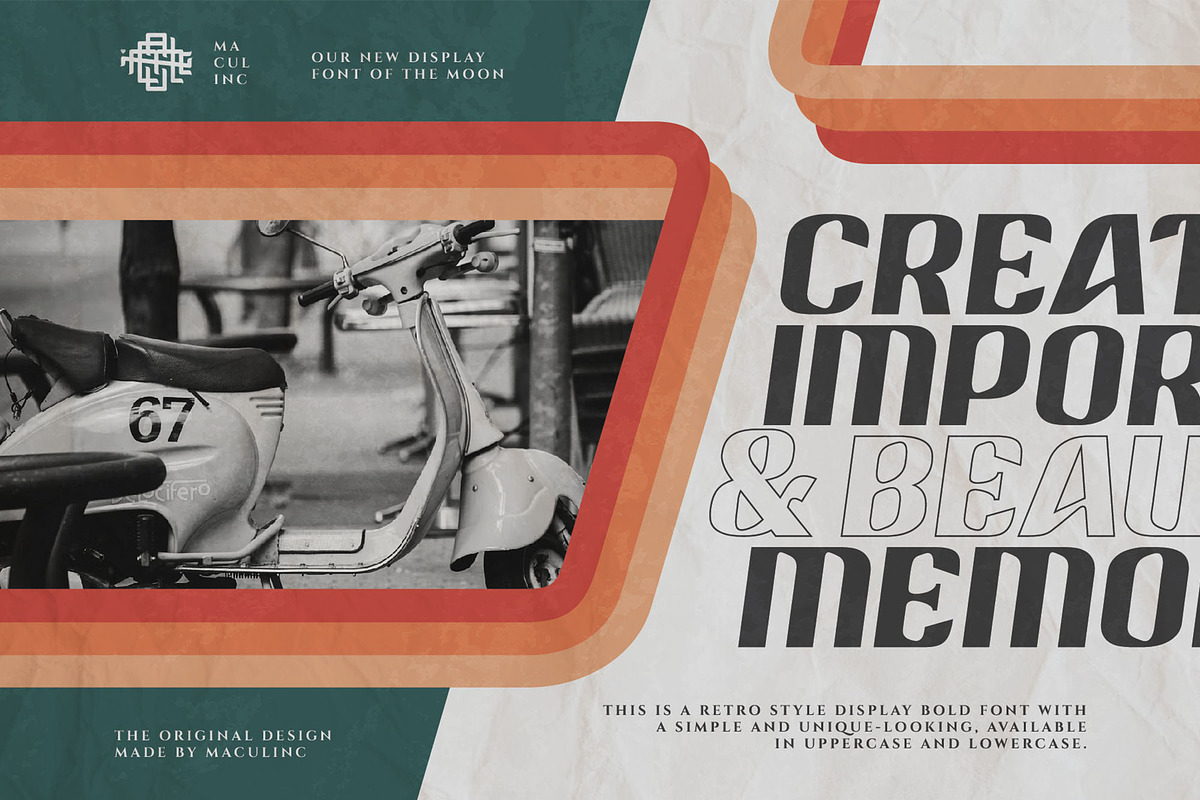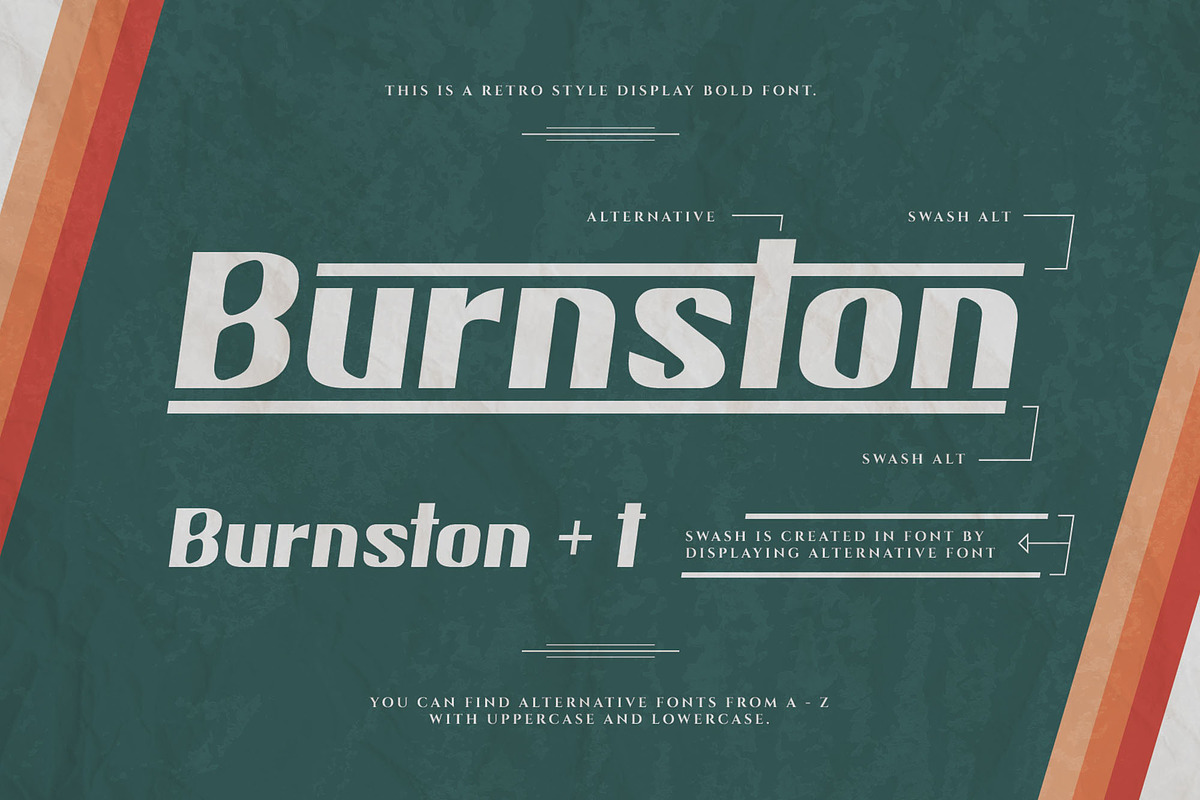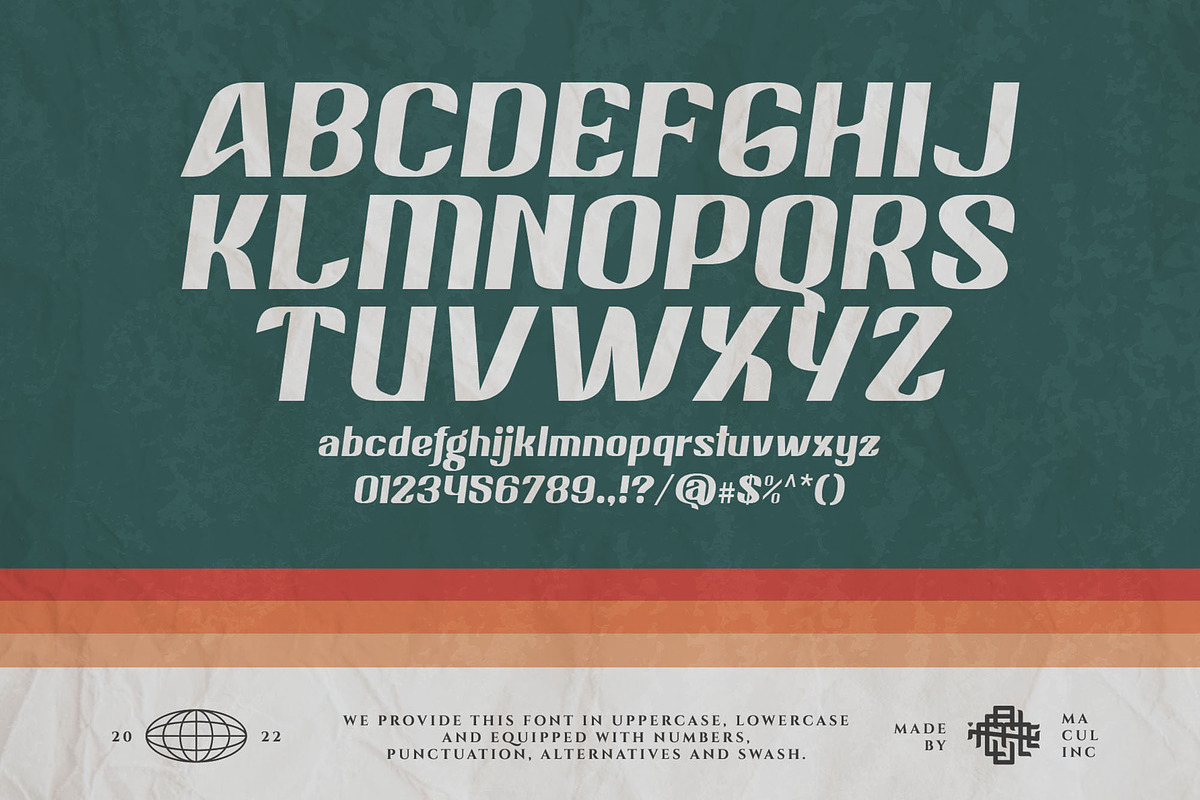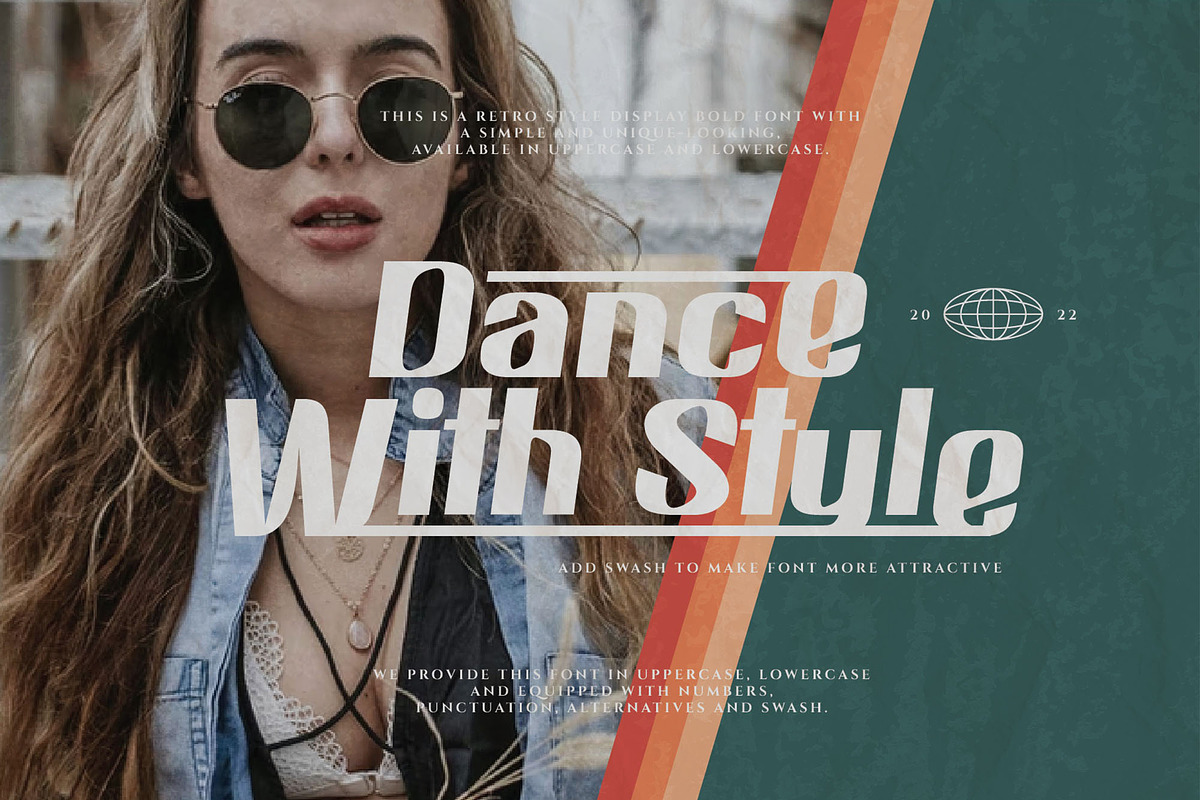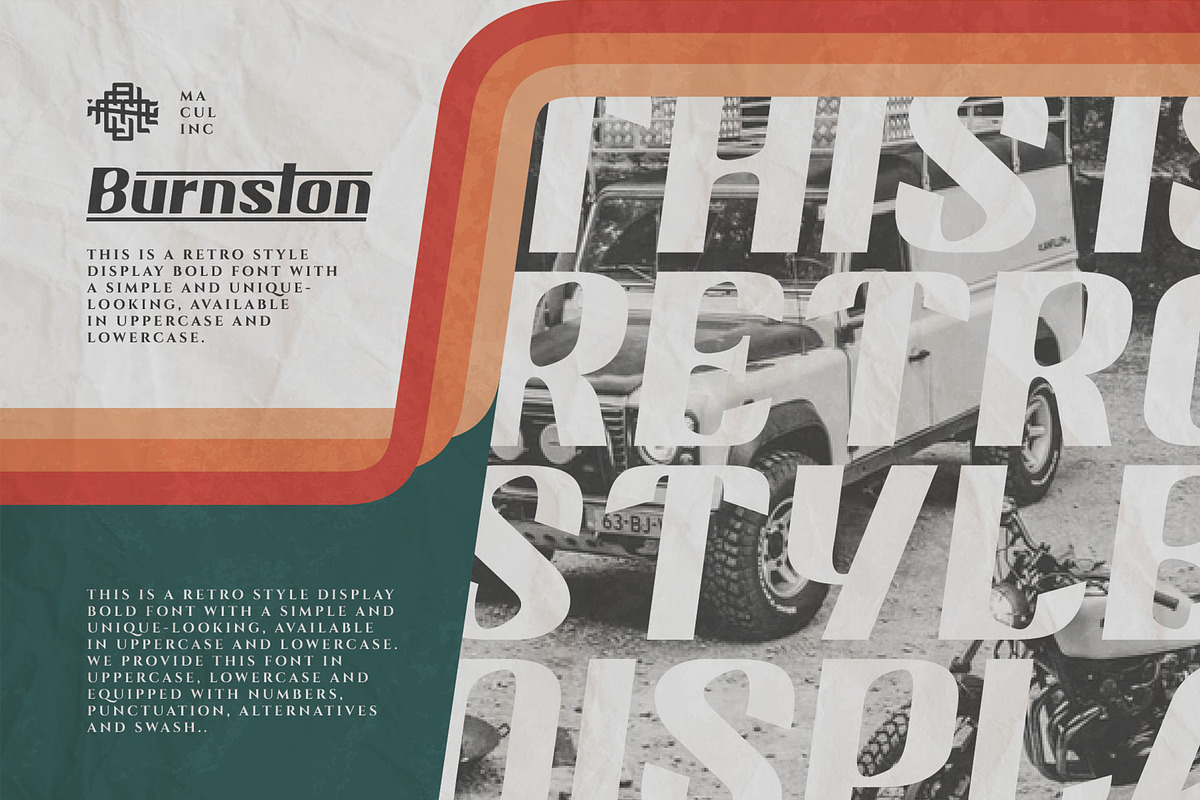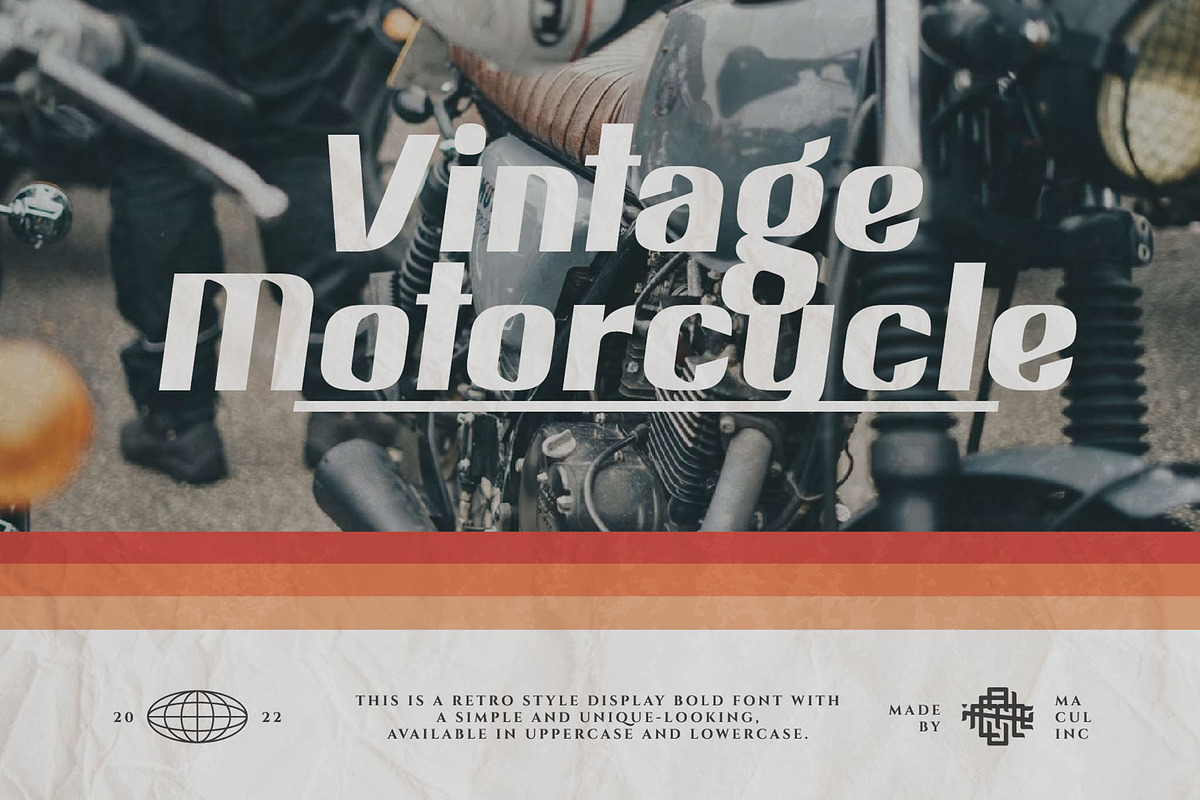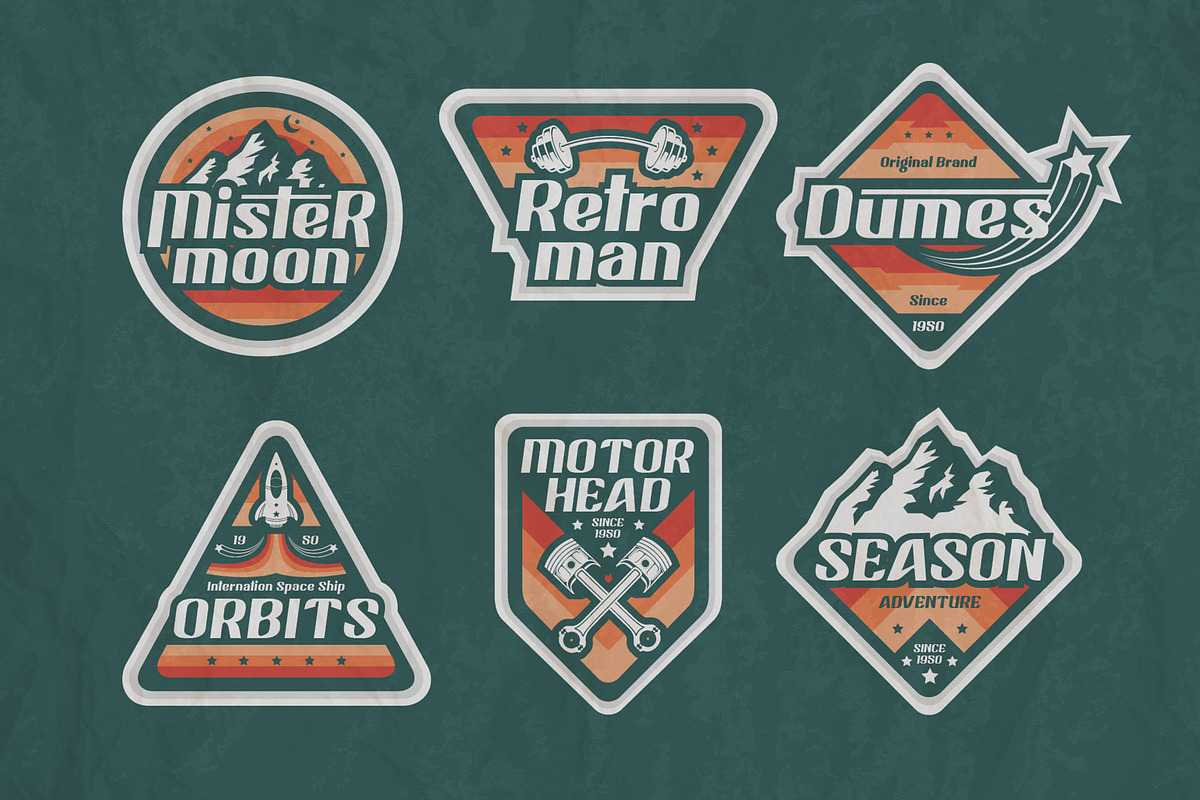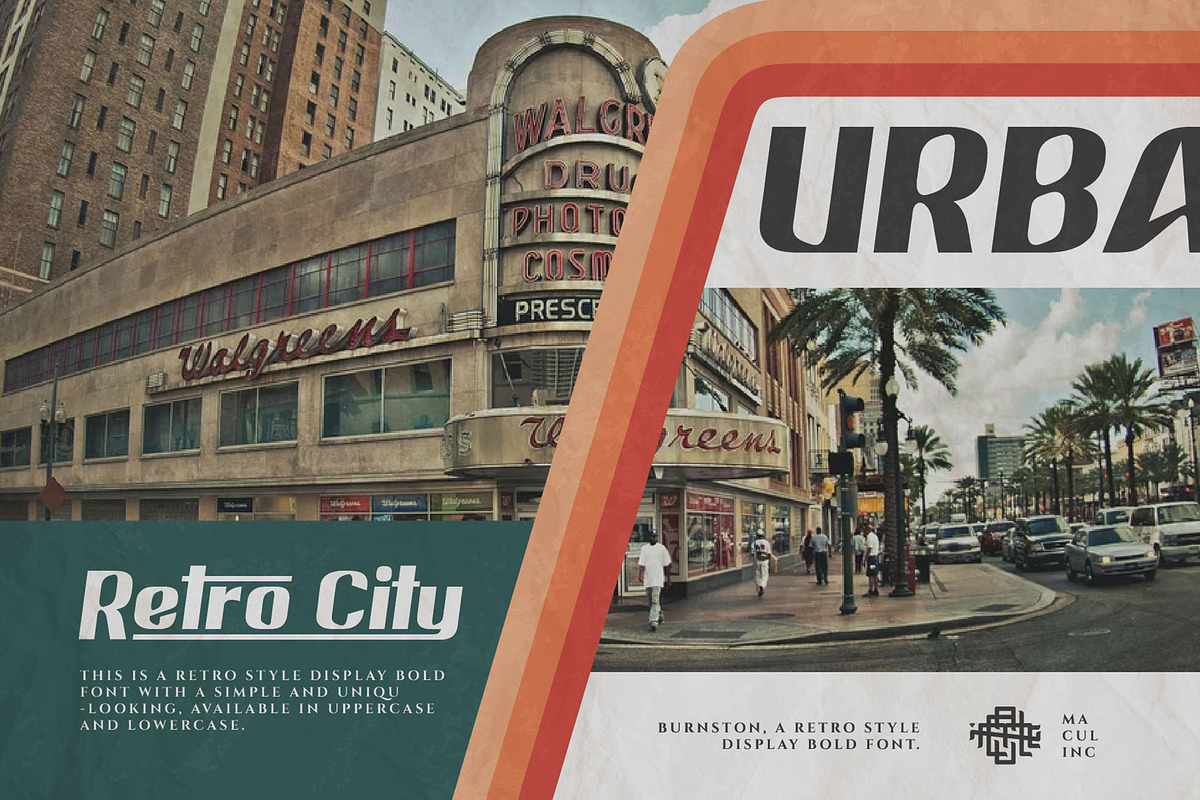
Burnston - Display Font
This is a bold font with a simple and unique retro concept. We provide this font in uppercase, lowercase, number, and equipped with punctuation, alternatives and swash.
Combine swash to add an interesting impression in every word you want, we provide swash as an alternative available in this font.